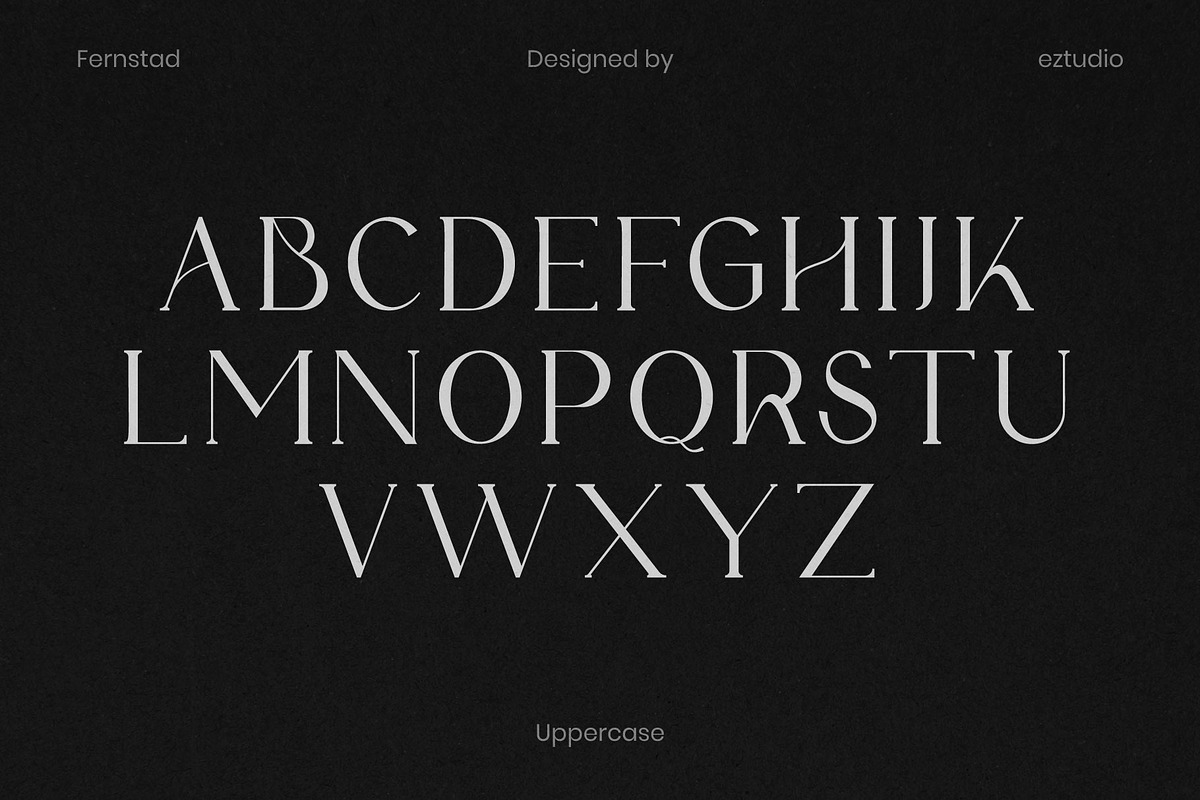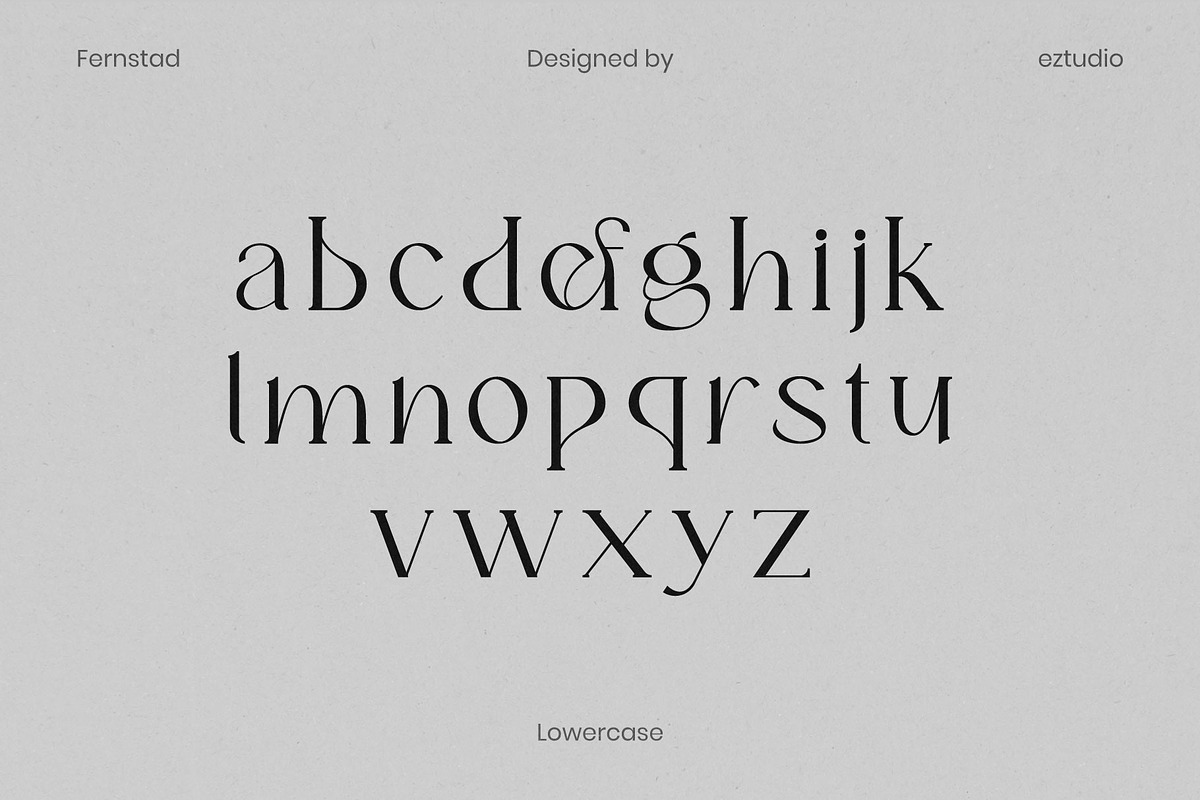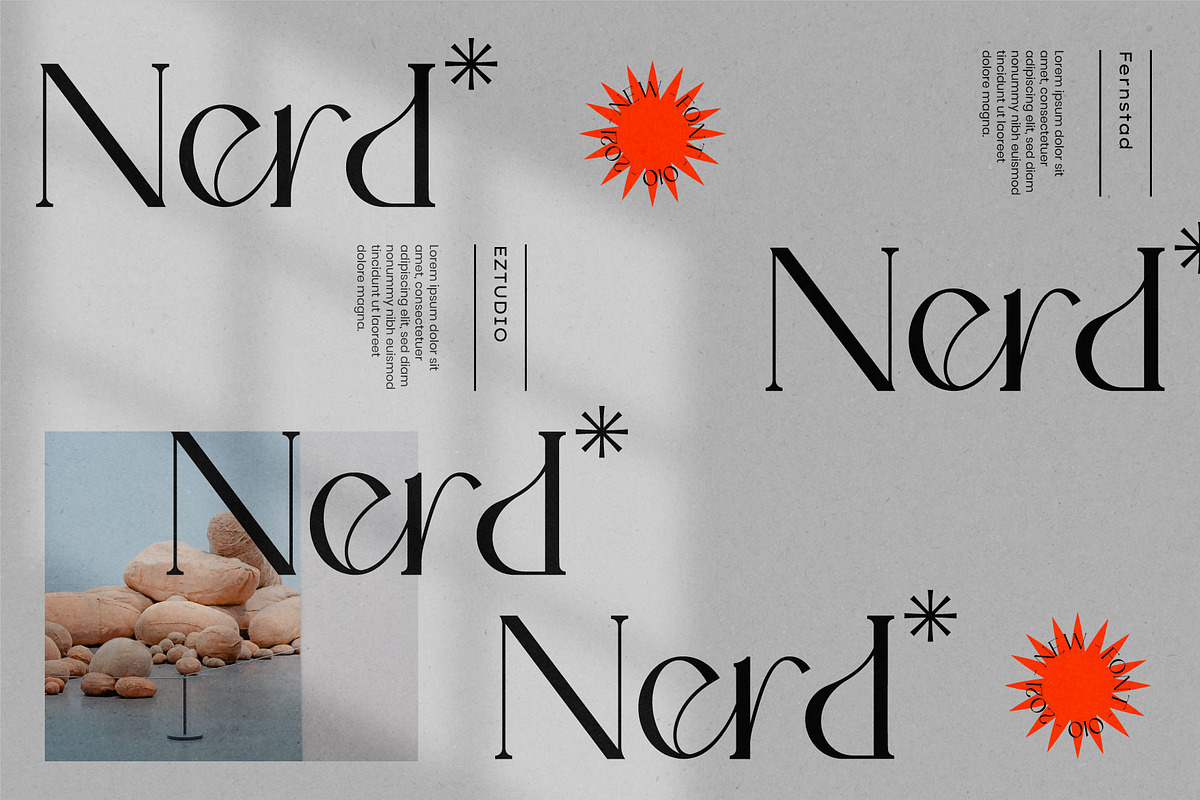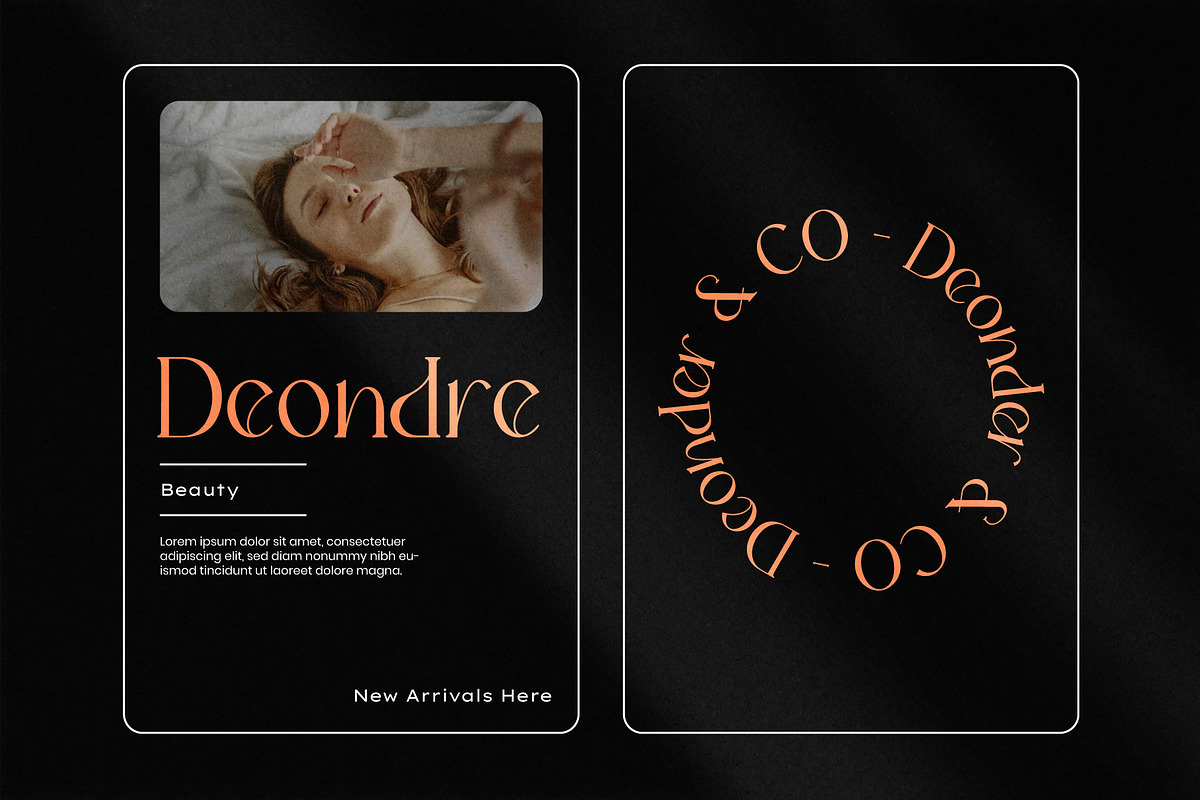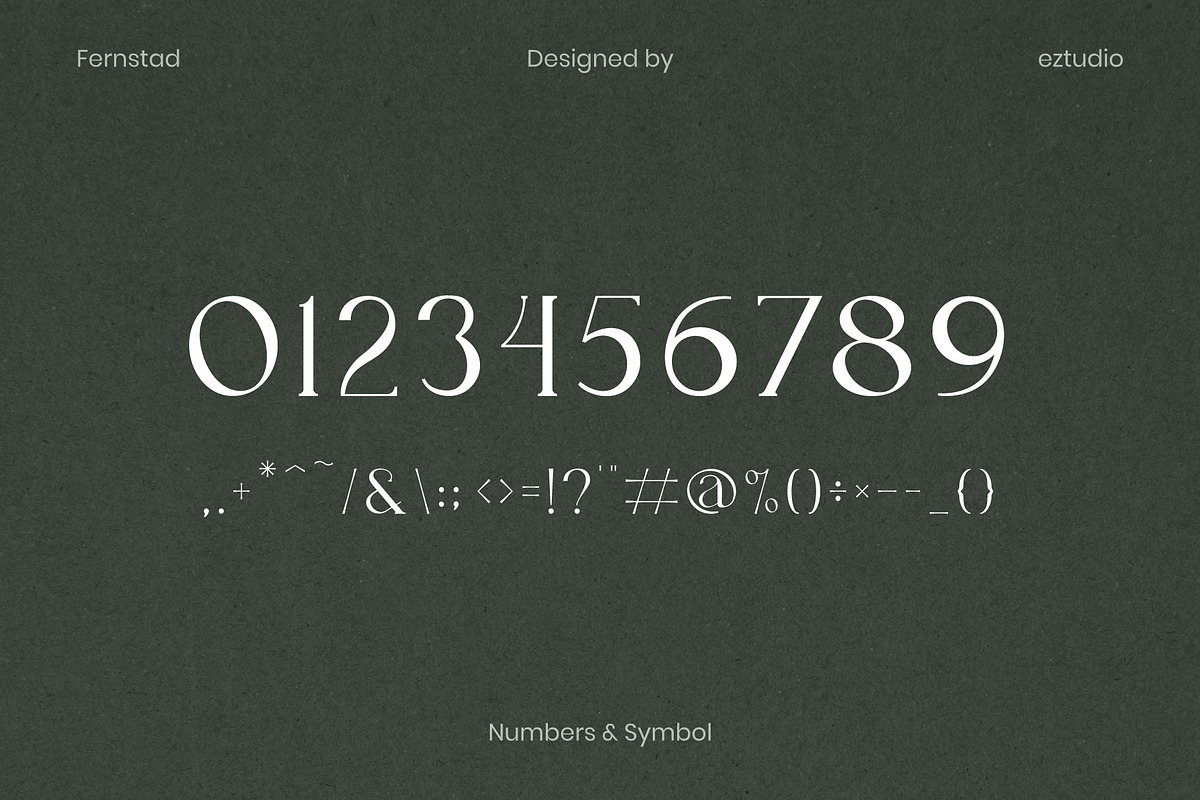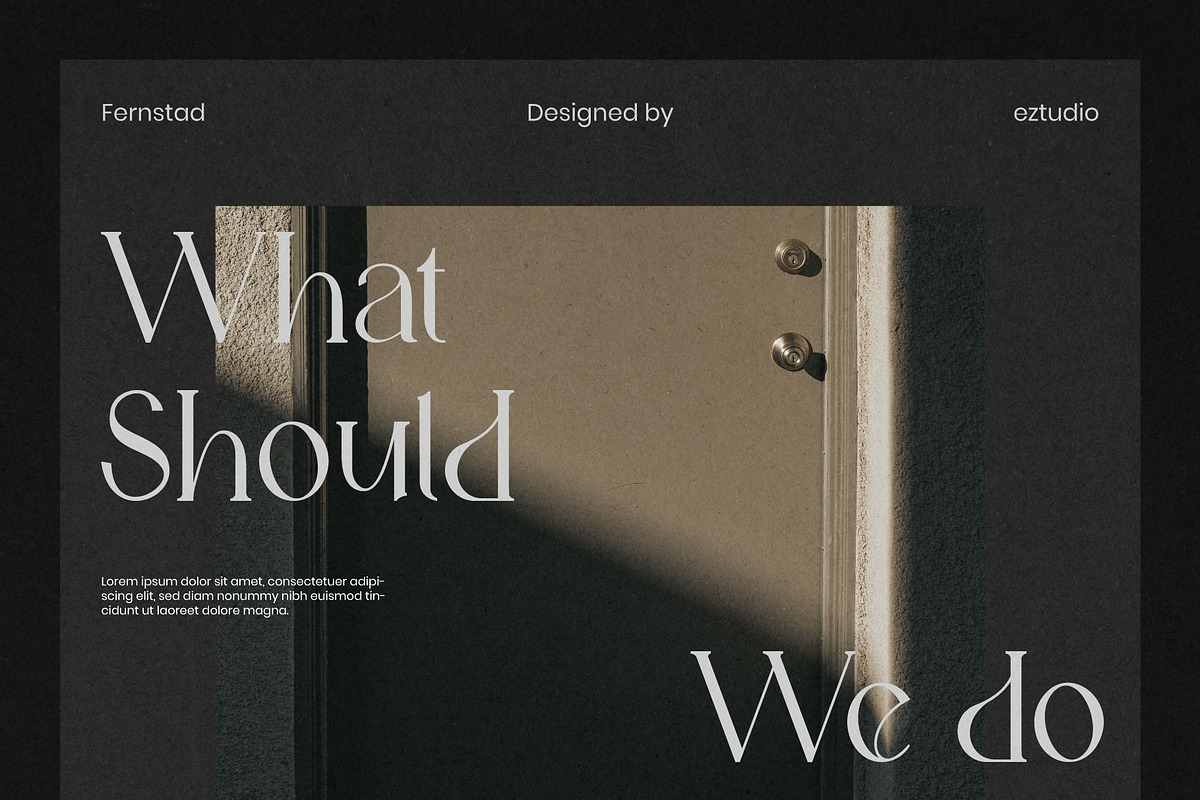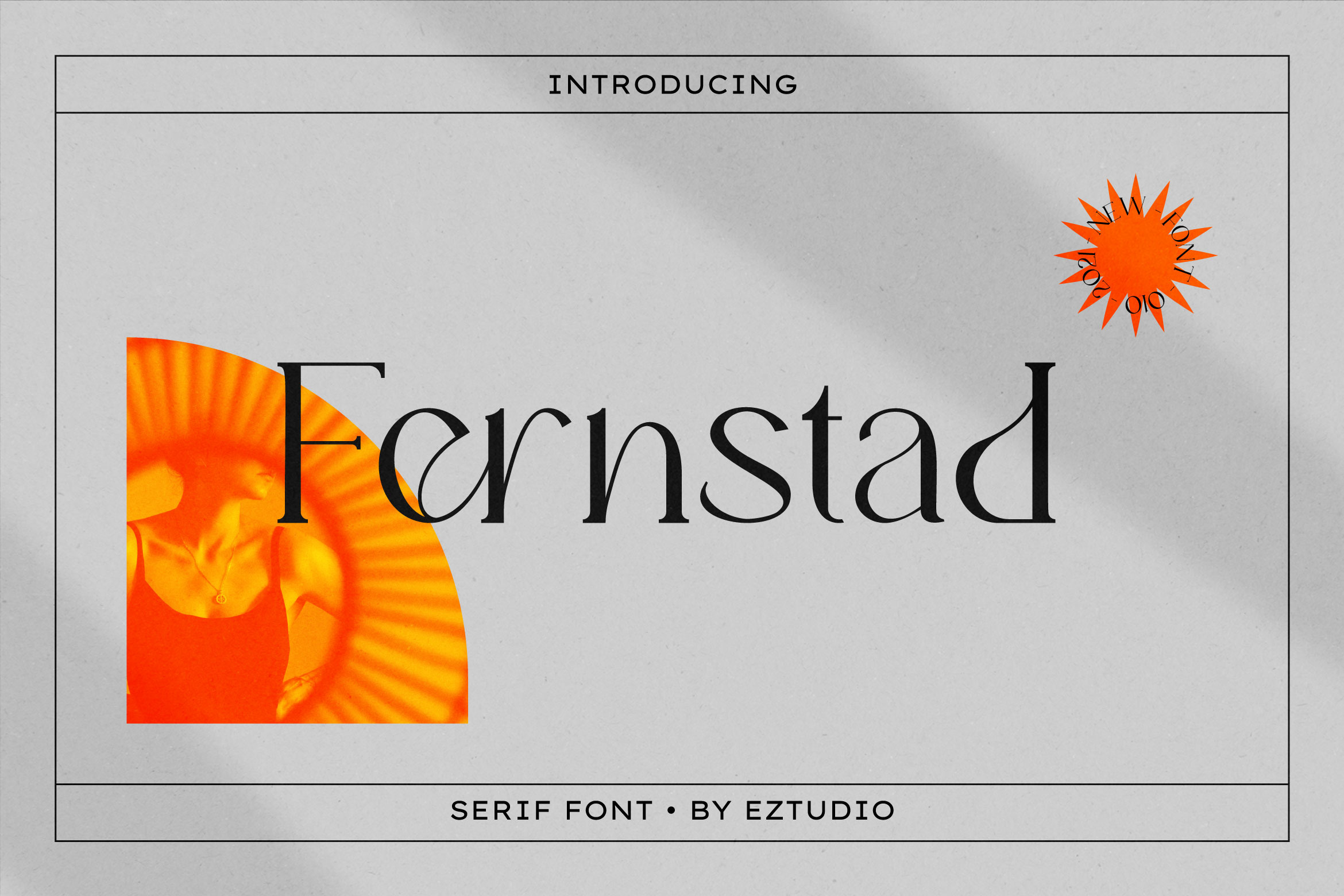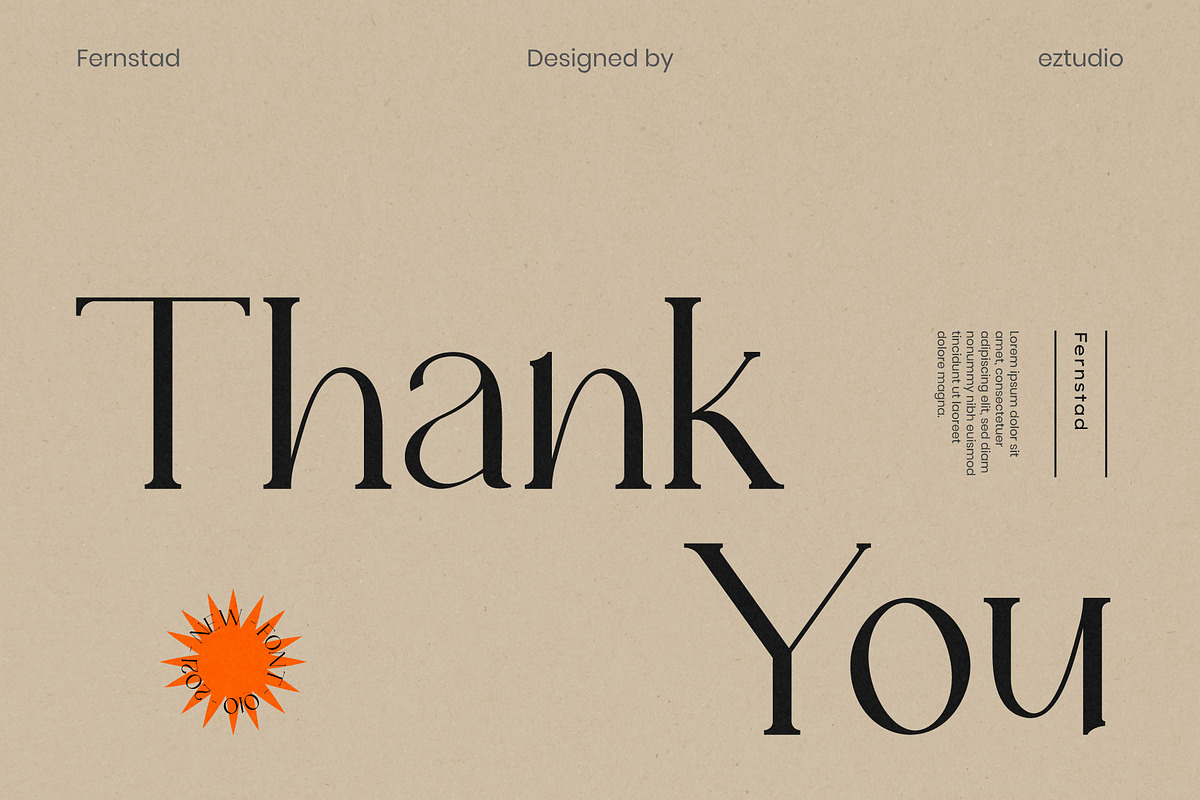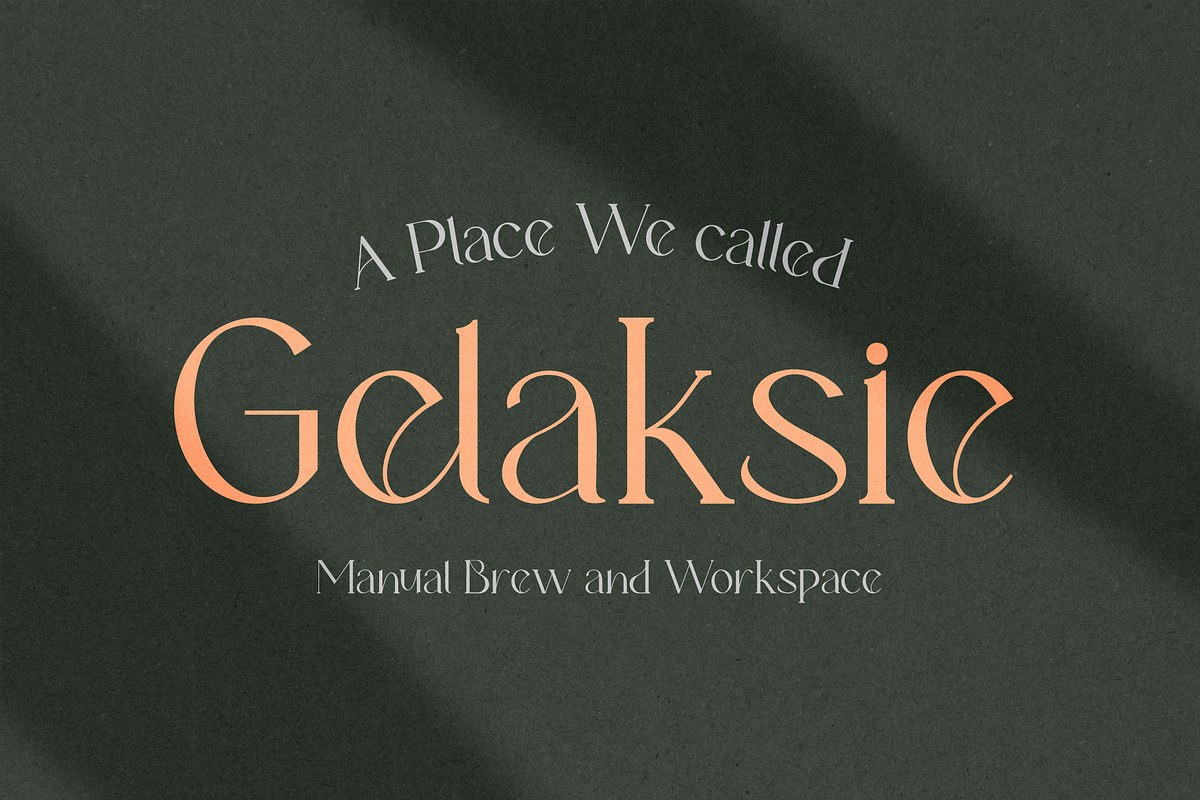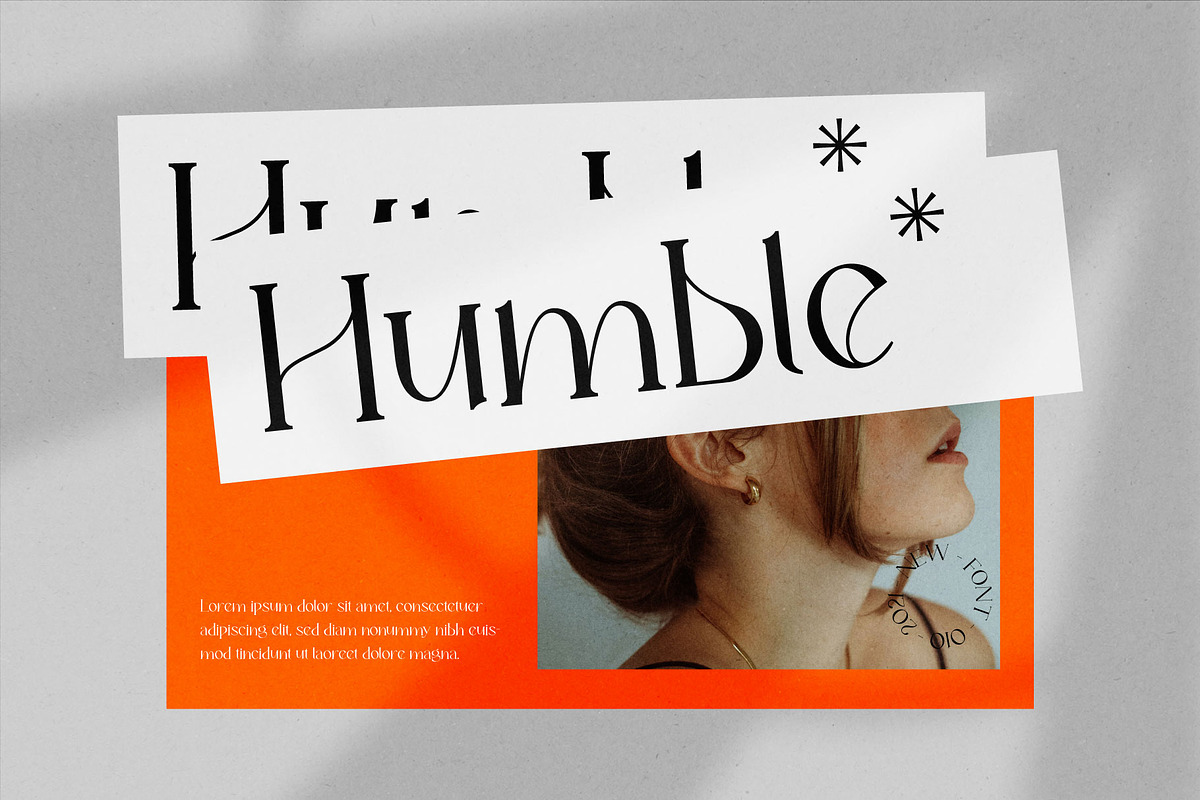
Fernstad - Elegant Serif Font
Fernstad is a thin, distinct and elegant serif font. It can be used for various purposes such as logos, wedding invitations, headings, t-shirts, letterhead, signage, labels, news, posters, badges and so much more